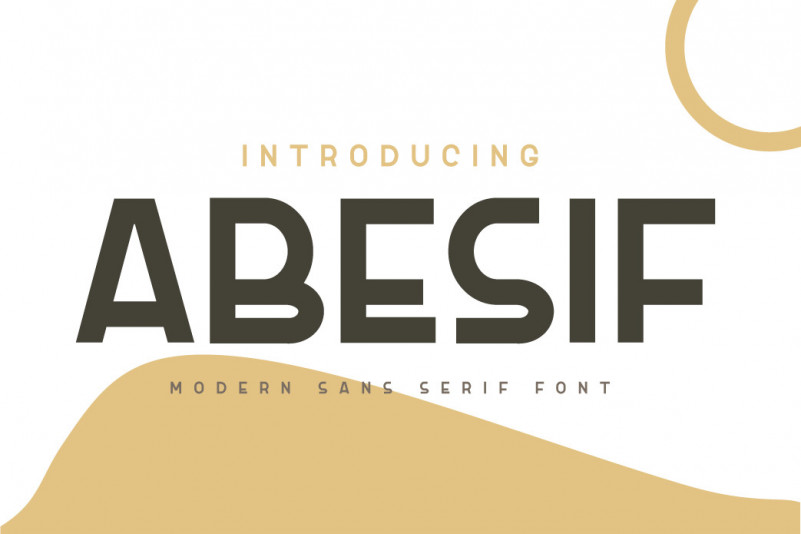
Abesif Sans Serif Font
Introducing Abesif sans serif font.
This font is stretched from the normal theme, it is boring, while different, it seems strange.
from there we design the appearance of this font that is not normal so that it is not boring and we display it differently but not look strange. so if you use this font it will look different from the others but it doesn’t look strange because it has a normal design. so that it creates an impression that is easy for each of your audience to remember when they first see your project.
This font is very suitable as text with displays for various kinds of branding, advertisements, posters, banners, packaging, news headlines, magazines, websites, logo design, banners, social media design, and of course you can use a lot more.